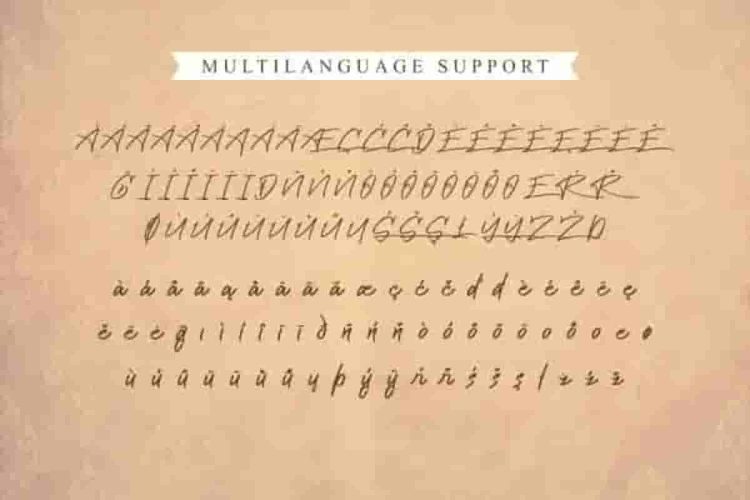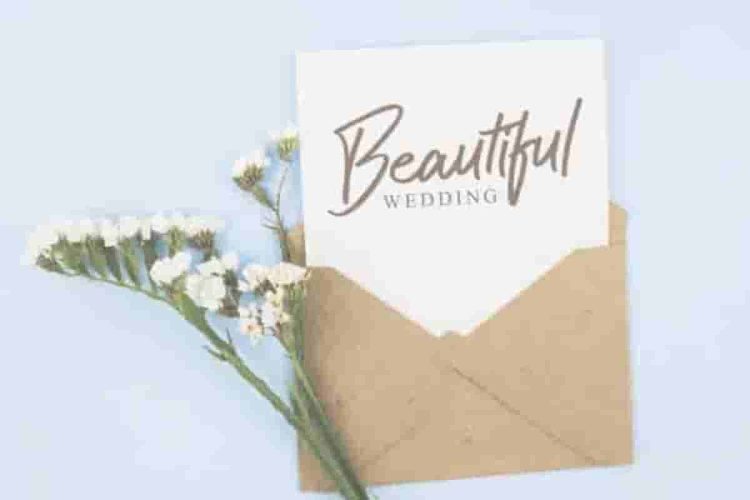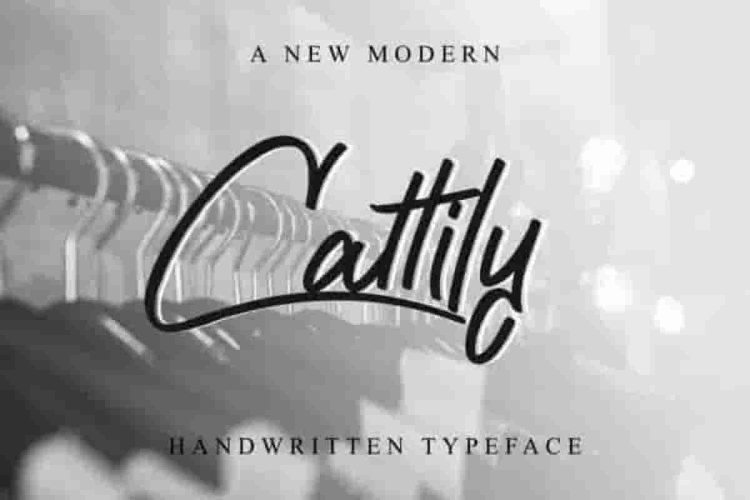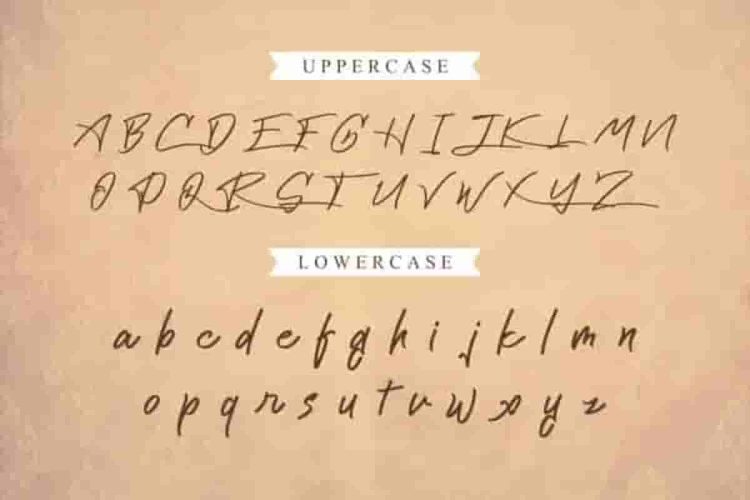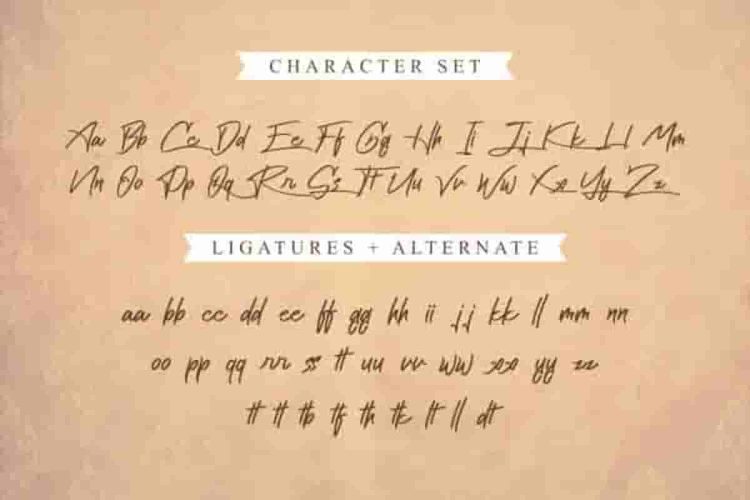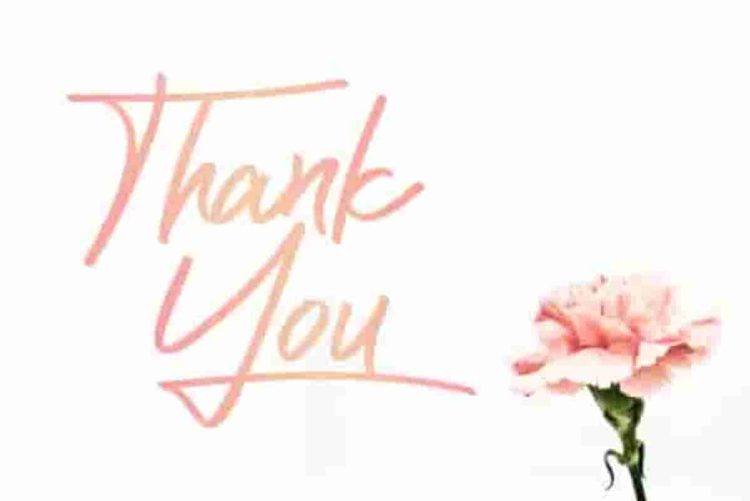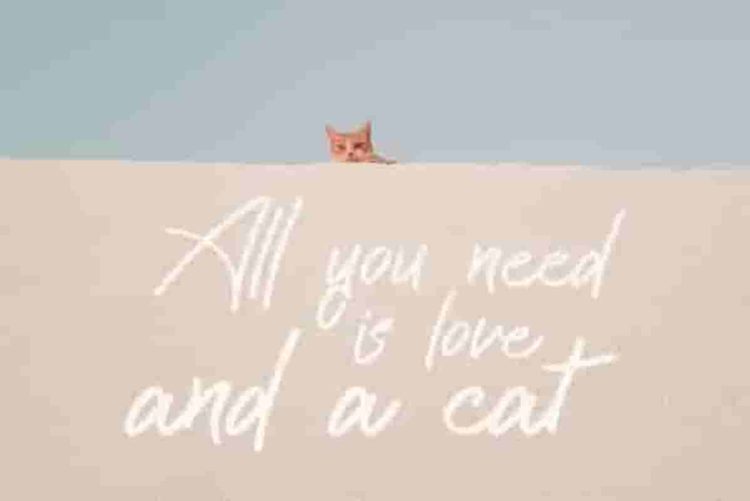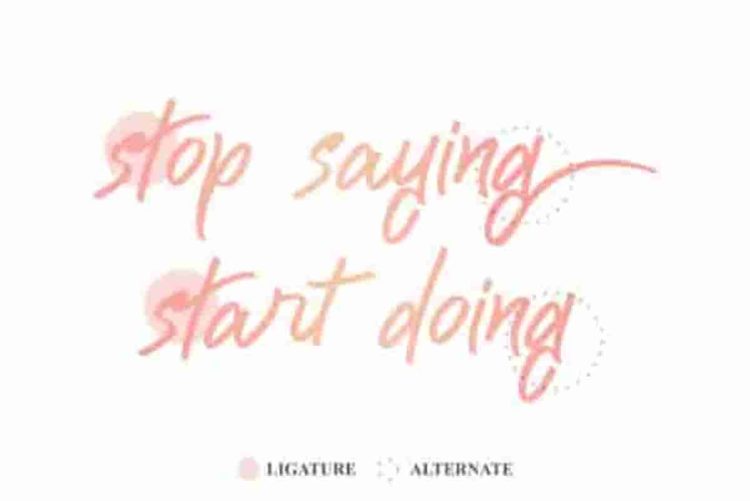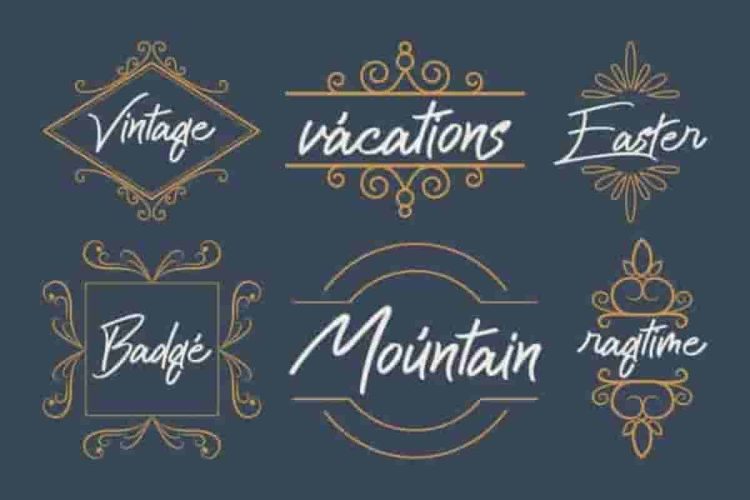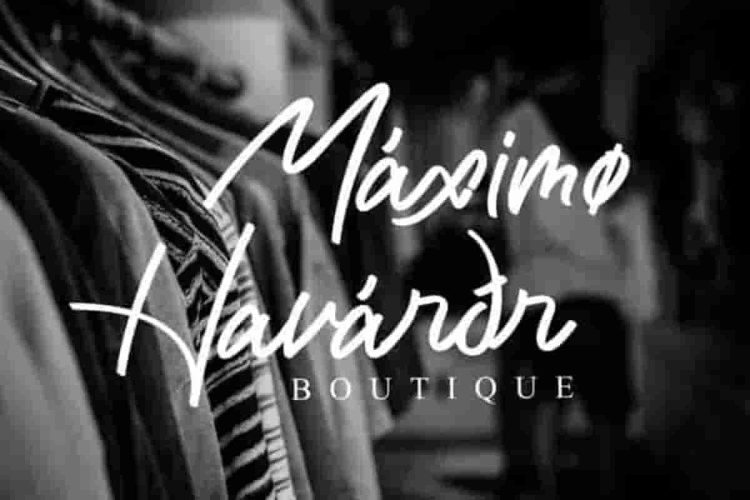
Cattily Calligraphy Script Font
Hei, please meet our latest font : Cattily Font!
It is a Calligraphy handwriting Script Font!
Cattily is a modern calligraphy script with a stylish brush-lettered look. More than just pretty, it’s crafted to impress. Cattily was designed with beautiful curves and natural handwritten strokes. It blends traditional calligraphy charm with a modern brush lettering feel. As a result, it brings out sophistication in every character, perfect for any elegant design. This font is ideal for many creative projects.
With its smooth flowing strokes, Cattily feels both artistic and professional. In addition, it includes full support for multiple languages, allowing you to use it globally without worry.
Each stroke in Cattily was carefully crafted to mimic natural handwriting. This gives your designs a warm, authentic feel – as if written by hand, but with perfect consistency. The ligatures and stylistic alternates bring variety and flow, making your text look personal yet polished. Whether in large headlines or small details, Cattily always delivers a high-end look.